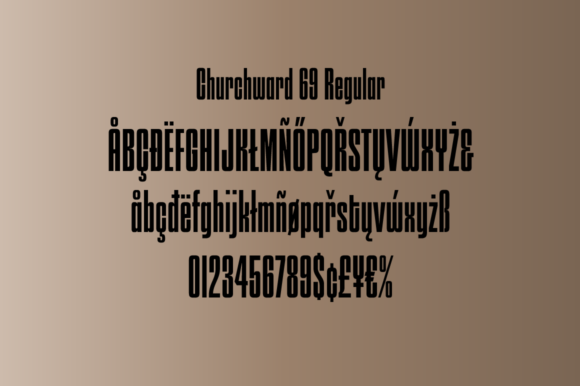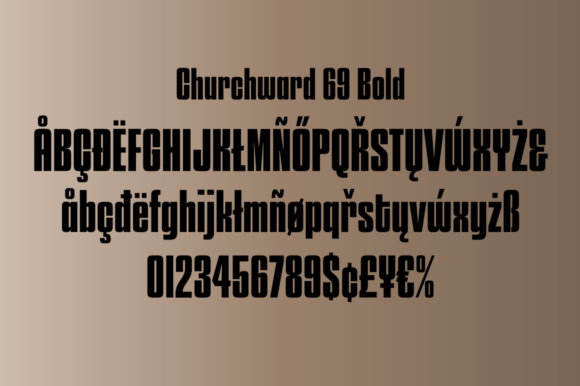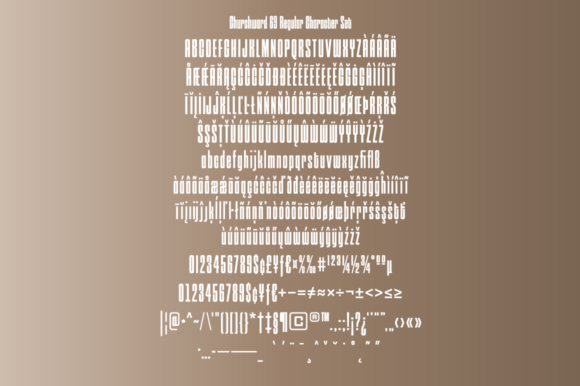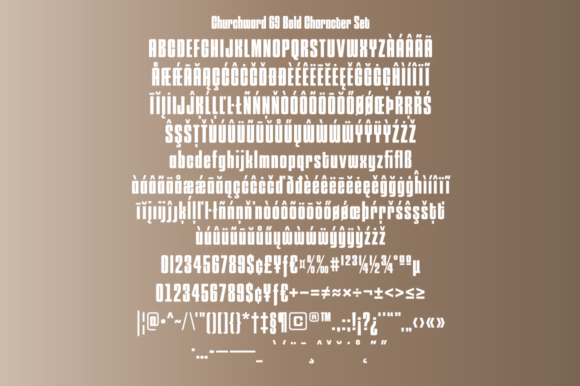
Introducing Churchward 69: The Ultimate Display Font for Modern Designs
In the world of typography, fonts play a crucial role in conveying messages, expressing emotions, and creating visual identities. For designers and crafters, finding the perfect font can be a daunting task, especially when it comes to creating bold and eye-catching displays. This is where Churchward 69 comes in – a cool and bold display font that’s perfect for designs related to technology, web development, and more.
What is Churchward 69?
Churchward 69 is a modern display font designed to make a statement. Its bold and sleek lines make it perfect for headlines, titles, and other display purposes. The font’s unique design is inspired by the industrial and technological advancements of the modern era, making it an ideal choice for designs related to tech, web development, and innovation.
Key Features of Churchward 69
- Bold and Eye-Catching: Churchward 69 is designed to grab attention. Its bold lines and sleek curves make it perfect for creating eye-catching displays that demand attention.
- Versatile: This font is versatile and can be used in various designs, from technology and web development to fashion and lifestyle.
- Modern and Industrial: Churchward 69’s design is inspired by the industrial and technological advancements of the modern era, making it perfect for designs that require a modern and edgy feel.
- Easily Readable: Despite its bold design, Churchward 69 is easily readable, making it perfect for use in headlines, titles, and other display purposes.
Use Cases for Churchward 69
Churchward 69 is perfect for a wide range of design projects, including:
- Technology and Web Development: Use Churchward 69 to create bold and eye-catching displays for technology and web development projects, such as logos, brochures, and website headers.
- Digital Marketing: This font is perfect for creating attention-grabbing ads, social media posts, and other digital marketing materials.
- Fashion and Lifestyle: Churchward 69’s modern and industrial design makes it perfect for use in fashion and lifestyle designs, such as fashion magazines, clothing labels, and accessories.
- Packaging: Use Churchward 69 to create bold and eye-catching packaging designs that demand attention.
Tips for Using Churchward 69
Here are some tips for using Churchward 69 effectively:
- Use it Sparingly: Churchward 69 is a bold font, so use it sparingly to avoid overwhelming your design.
- Pair it with Other Fonts: Experiment with pairing Churchward 69 with other fonts to create a unique and visually appealing design.
- Adjust the Size: Adjust the size of Churchward 69 to create visual hierarchy and emphasize important information.
- Experiment with Colors: Churchward 69 looks great in bold and bright colors, so experiment with different colors to find the perfect combination for your design.
Churchward 69 is a cool and bold display font that’s perfect for modern designs related to technology, web development, and more. Its unique design, versatility, and readability make it an ideal choice for designers and crafters looking to create eye-catching displays. With its wide range of use cases and tips for effective use, Churchward 69 is sure to become a go-to font for designers and crafters around the world.